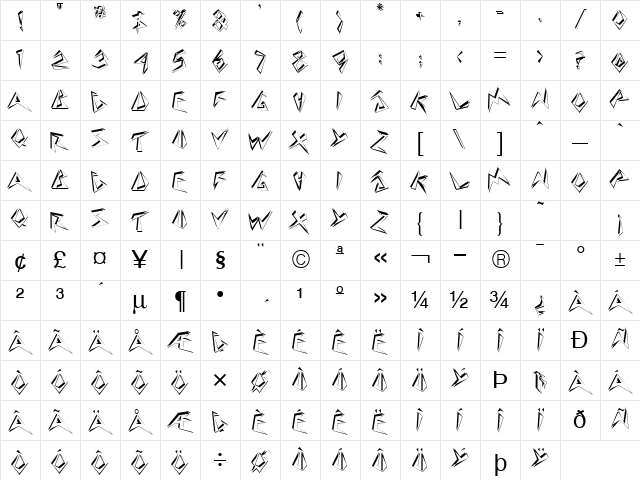
Complete Punker Normal glyph index. Displaying only characters natively supported by Punker Normal font.
Punker is a composed and adaptable typeface that performs quietly and consistently across a wide range of design contexts.